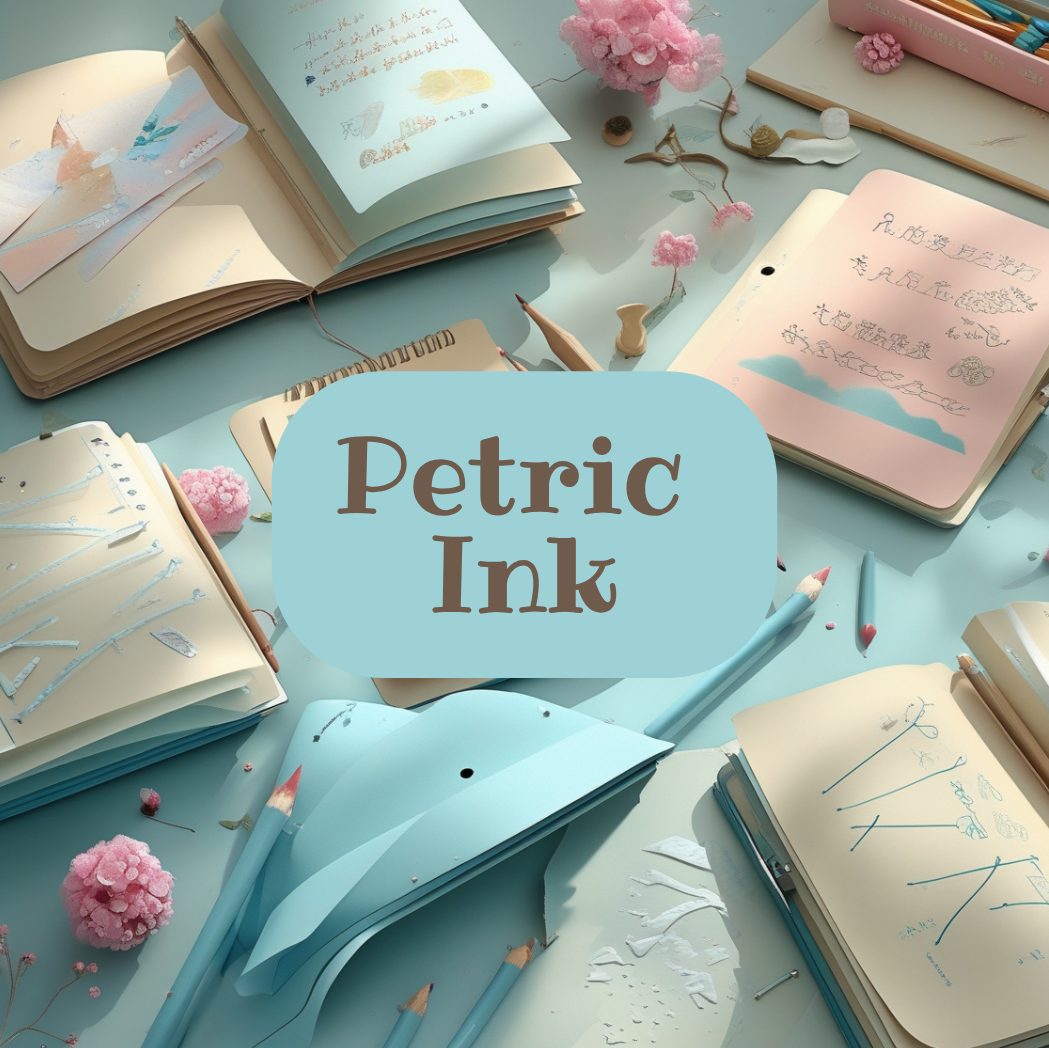
Petric Ink
Petric Ink is a deeper, textured font set where each letter feels handwritten in a personal journal. Its irregular strokes add personality, and the slightly blurred lines create a cozy feel. A natural choice for journals, invitations, and expressive covers. Several styles vary in tone and weight to fit a mood or tone. It remains readable even in complex compositions. Helps create visual rhythm with quiet emotion. It doesn’t speak loudly—it whispers.